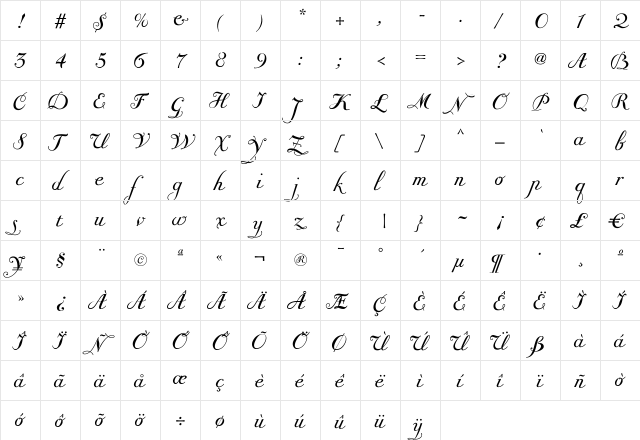
Giambattista Three Script
| Style | Script |
Design Context for Giambattista Three Typeface
Giambattista Three flows with the natural rhythm of handwritten lettering, making it ideal for designs that call for warmth and personal expression.